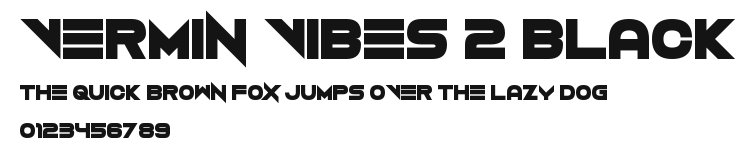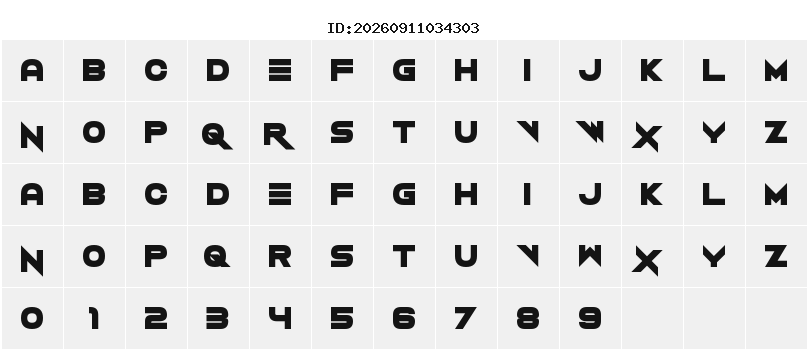
• Font Name: Vermin Vibes 2 Black
• Full Font Name: Vermin Vibes 2 Black
• Version: Version 1.00 June 29, 2013, initial release
About Vermin Vibes 2 Black.otf
Vermin Vibes 2 Black.otf is a modern, elegant sans-serif font designed for ultimate readability and visual harmony. Perfect for branding, headlines, web design, and print materials.